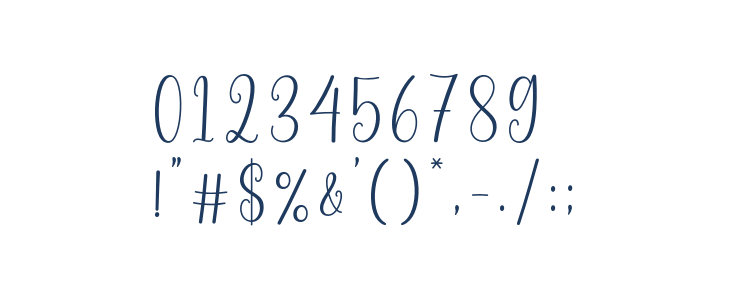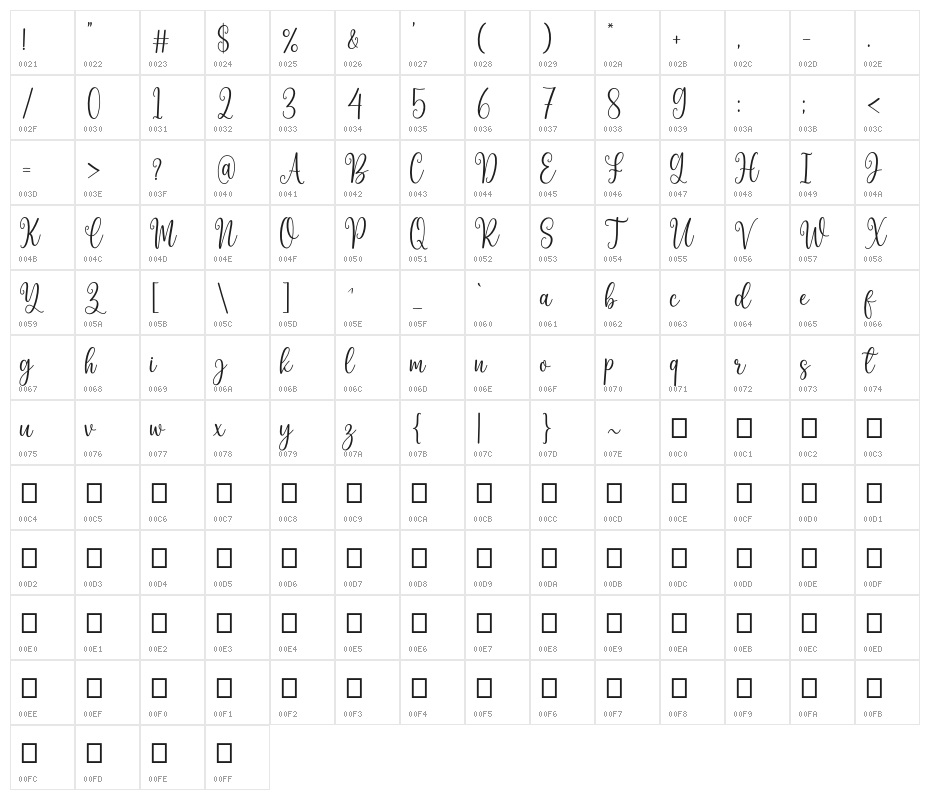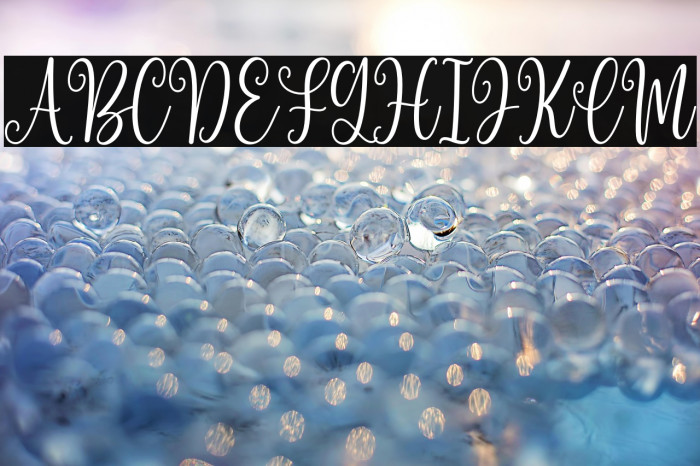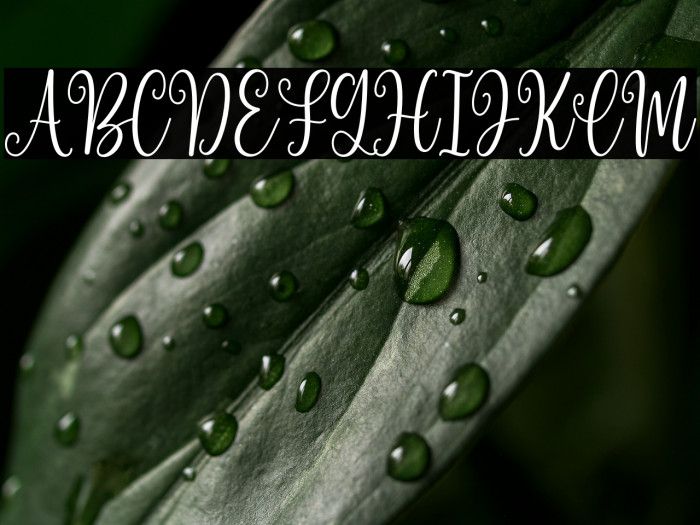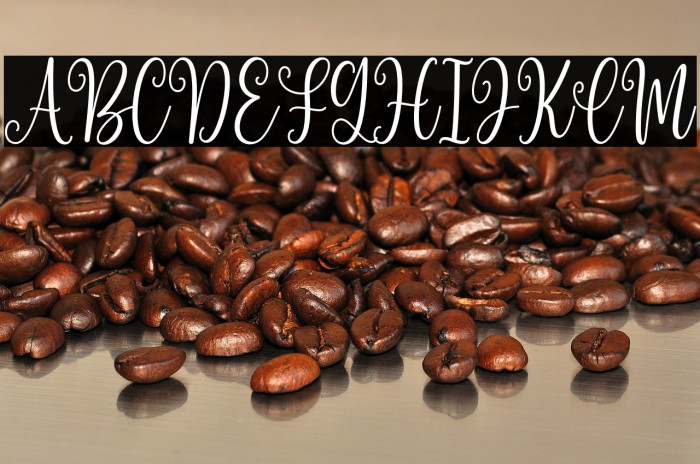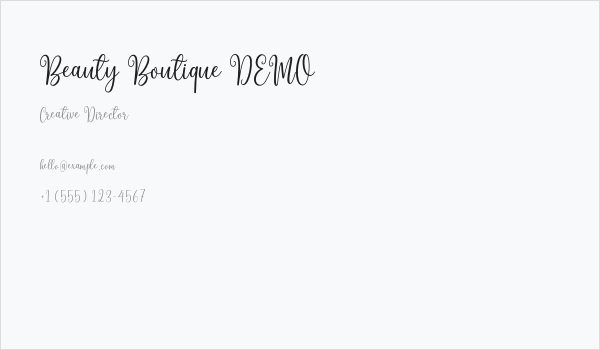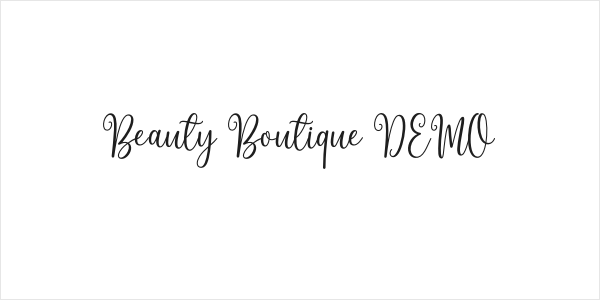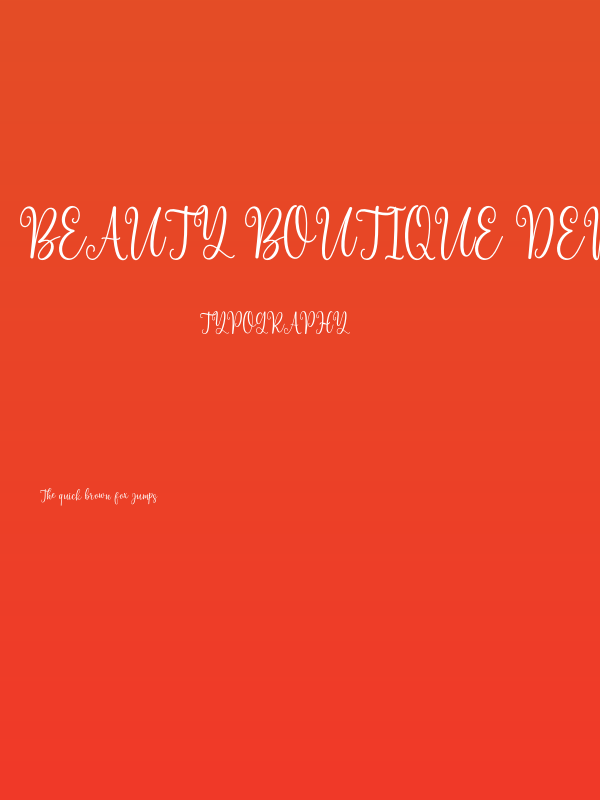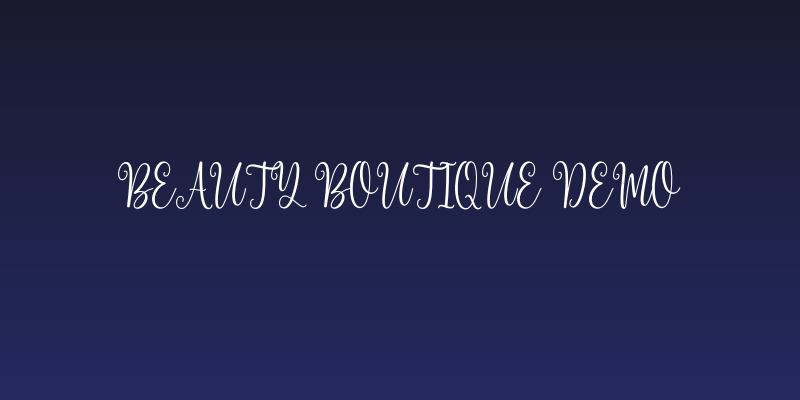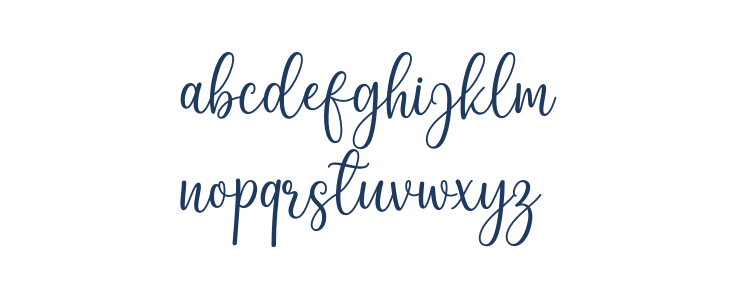
Beauty Boutique DEMO Font
Beauty Boutique DEMO Description
This font exudes elegance and sophistication with its flowing, cursive style. The uppercase letters are characterized by their graceful loops and swirls, creating a sense of movement and fluidity. The lowercase letters maintain this fluidity, with a slightly more restrained design that ensures readability. The numerals are distinct and stylish, complementing the overall aesthetic. Special characters are thoughtfully designed to match the font's elegant theme. This font is perfect for projects that require a touch of class and refinement.
Overall StyleElegant
Use CaseLogos, Invitations, Branding
Proposed ProjectsIdeal for wedding invitations, luxury branding, and elegant stationery.